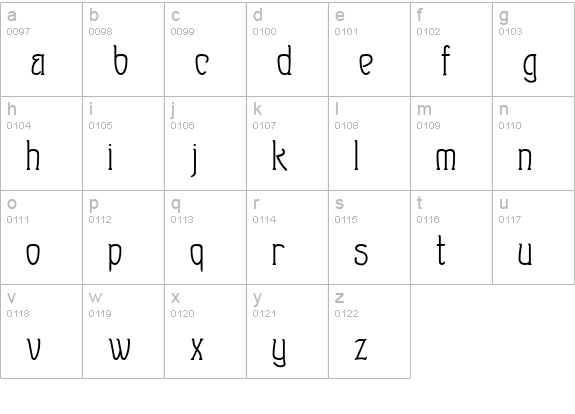
Sylph font is a stunning and elegant typeface that exudes sophistication and charm. With its graceful curves and stylish flourishes, Sylph font is perfect for adding a touch of class to any design project. Whether you're creating invitations, branding materials, or signage, this font will elevate your work to the next level. What's even better is that Sylph font is completely free to download at FontsMarket.com. That's right, you can enhance your projects with this beautiful font without spending a dime. So why wait? Head over to FontsMarket.com now and download Sylph font to add a touch of elegance to your designs today!